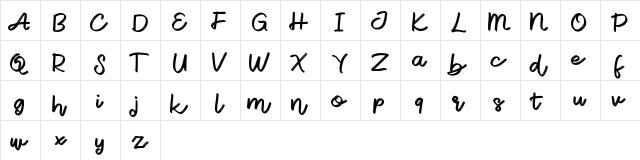
Ecustic FREE Regular
Design Context for Ecustic FREE Typeface
Ecustic FREE is a composed and adaptable typeface that performs quietly and consistently across a wide range of design contexts.